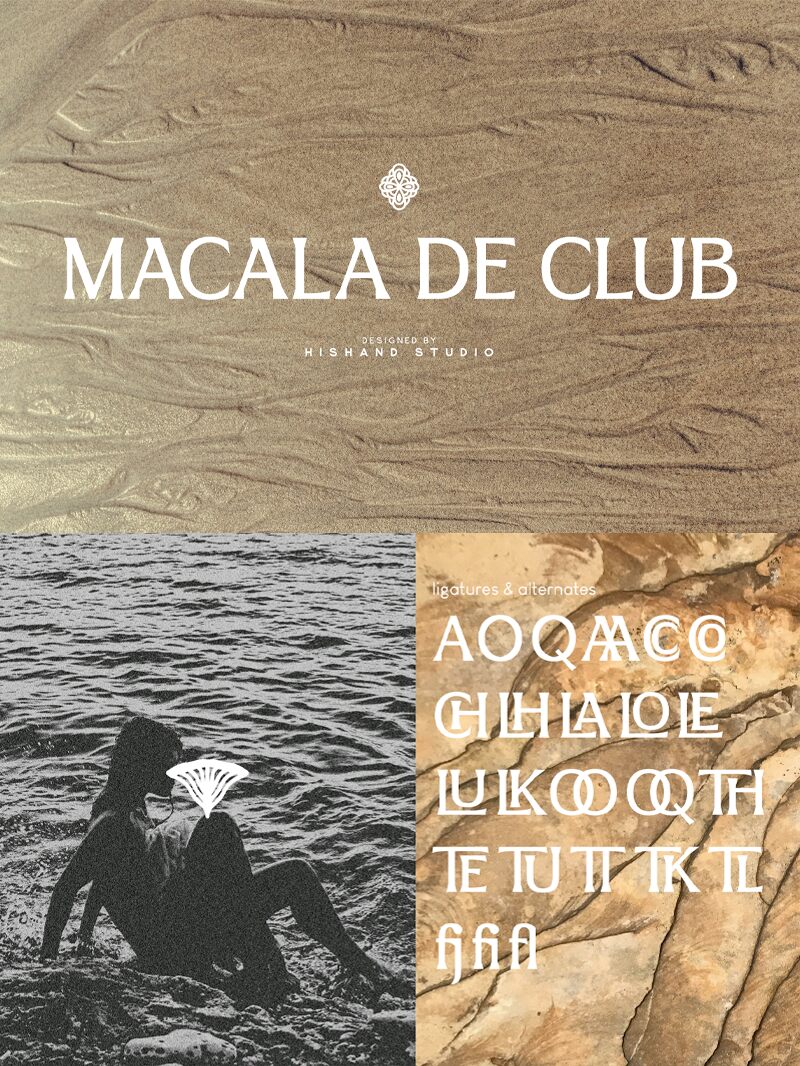
Macala De Club font by Hishand Studio is an elegant and sophisticated free font that embodies timeless style. This serif typeface exudes refinement, making it an excellent choice for projects requiring a formal and classic touch. With its carefully crafted characters, the font brings a sense of sophistication and class to any design, making it an ideal choice for various professional and creative endeavors.
Use Macala De Club for logos, branding, business cards, packaging, book covers, magazines, invitations, website headers, posters, advertising, or any project that aims to leave a lasting impression. The font's refined elegance makes it exceptionally versatile and suitable for both print and digital applications.